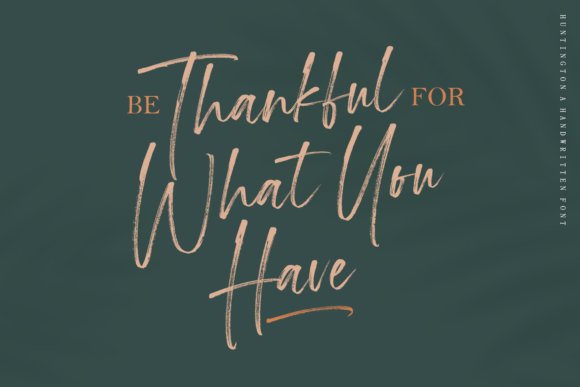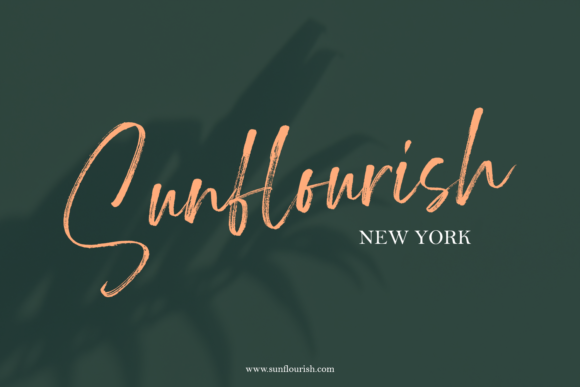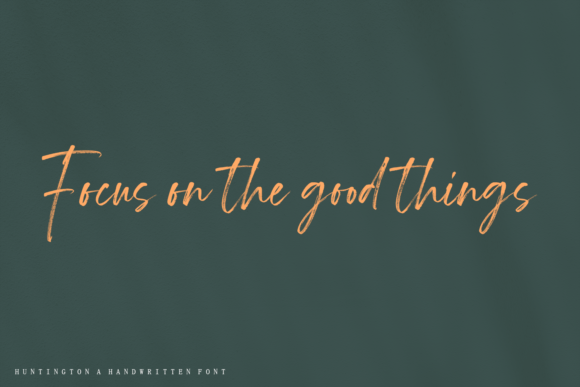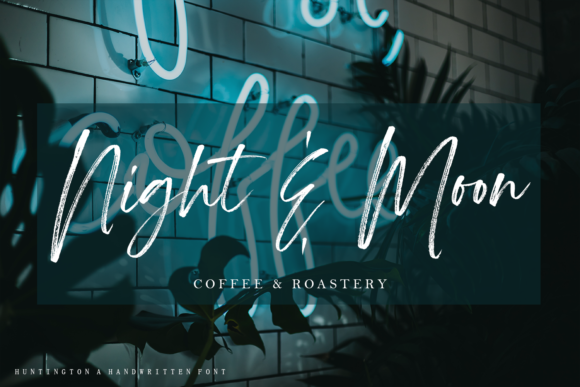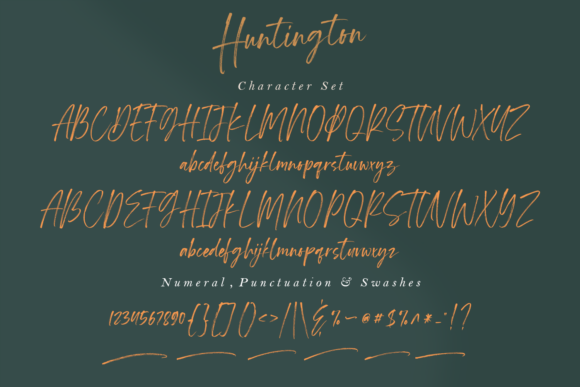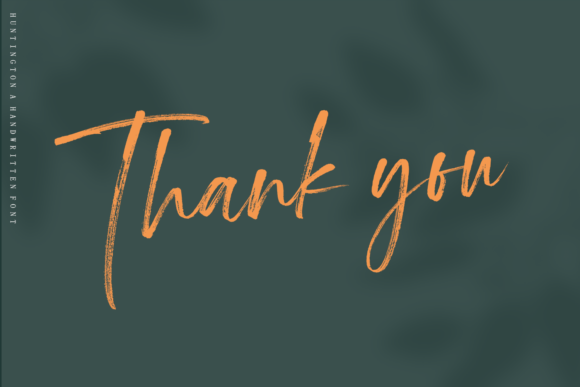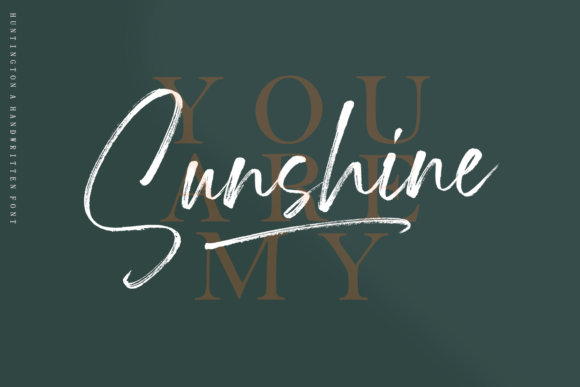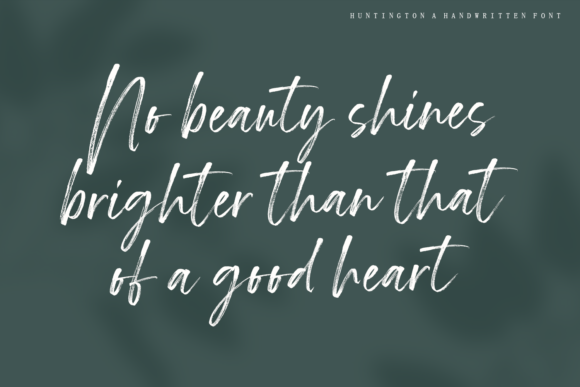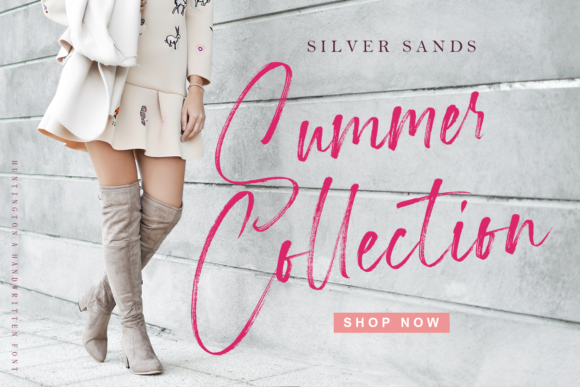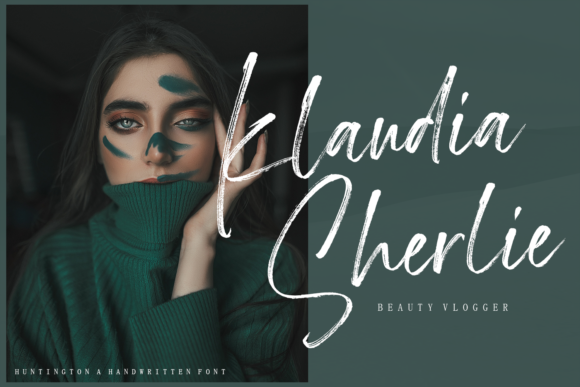
Huntington Font
About Huntington Font
Huntington is a unique handwritten font. It can be used for various projects such as wedding invitations, social media, logos, branding, graphic design, album covers and more.